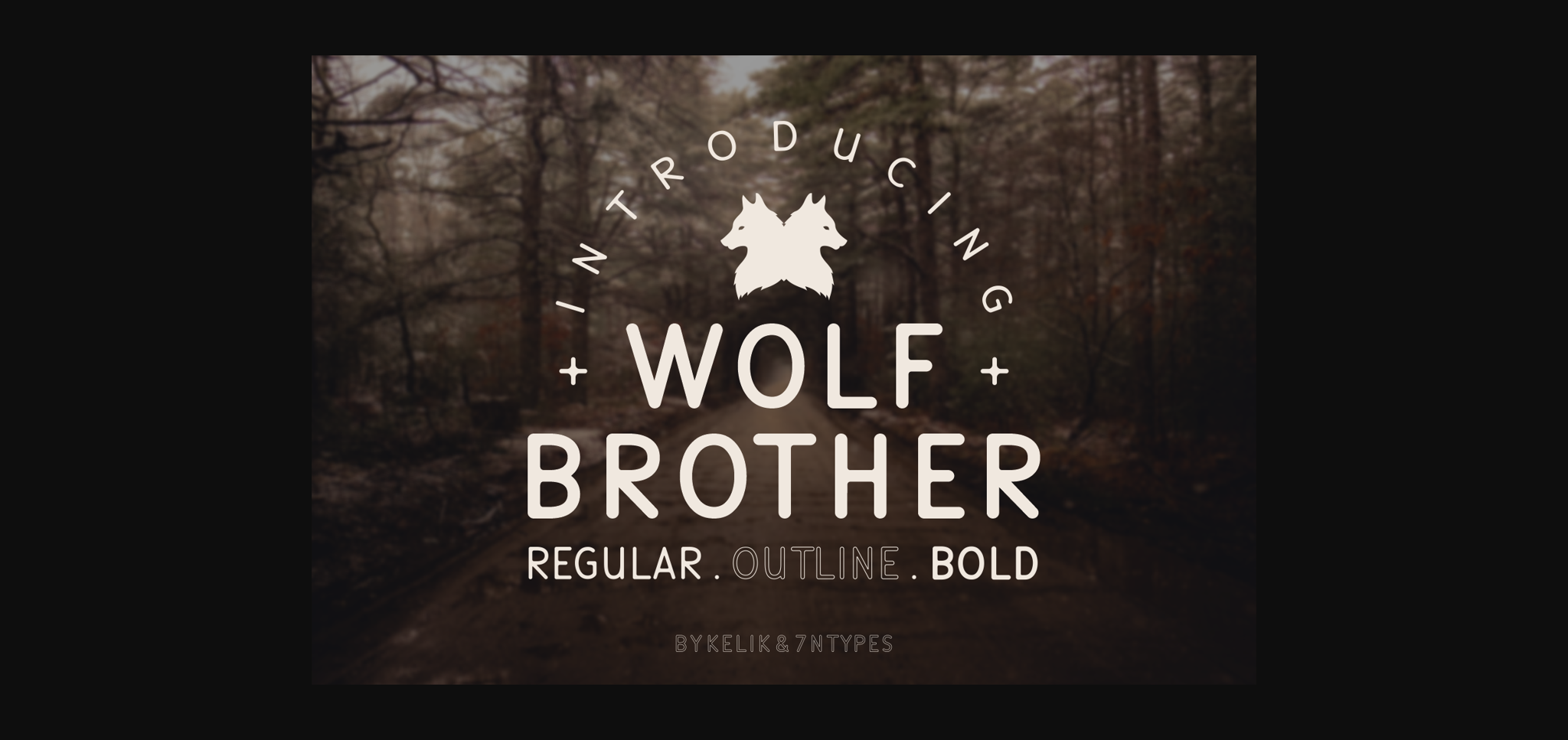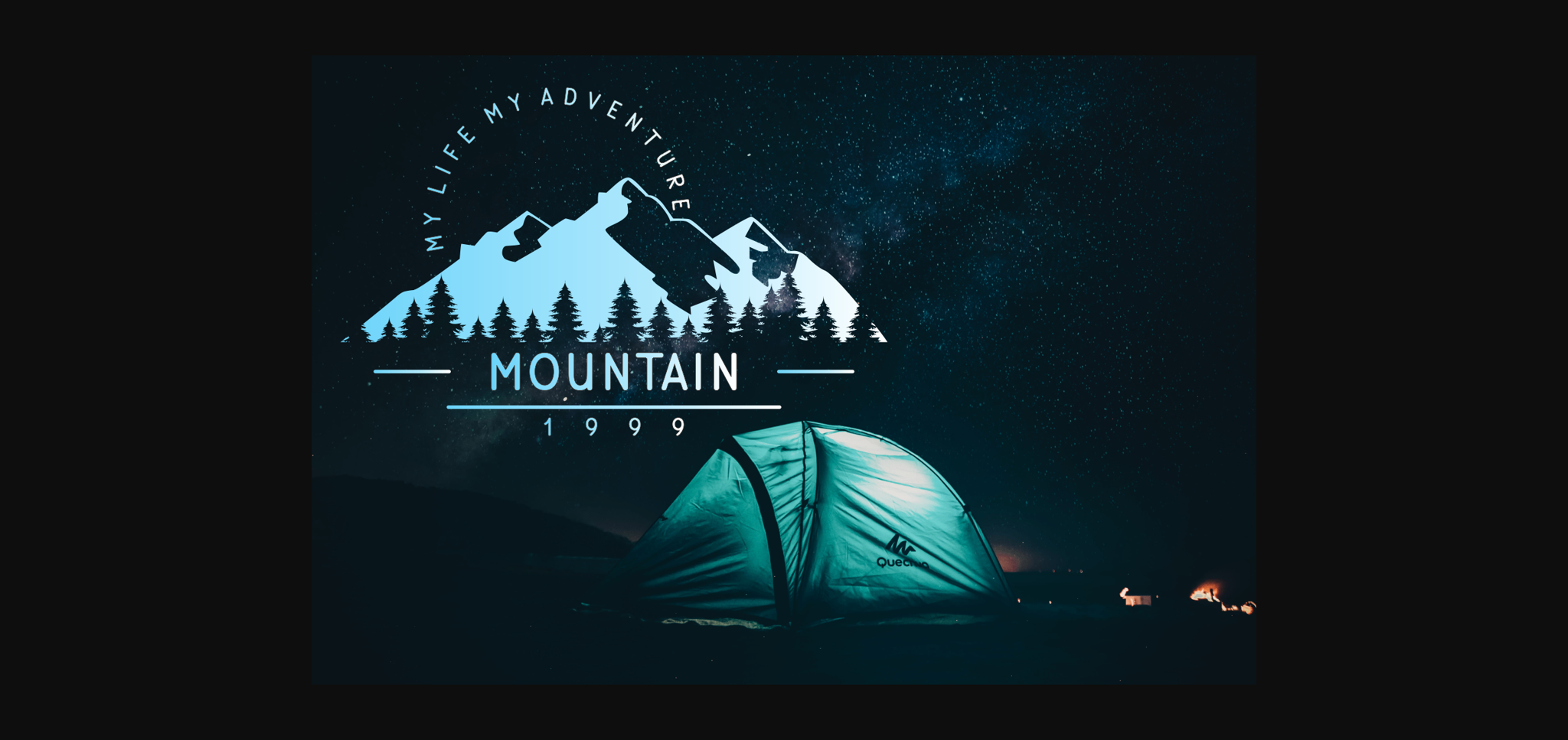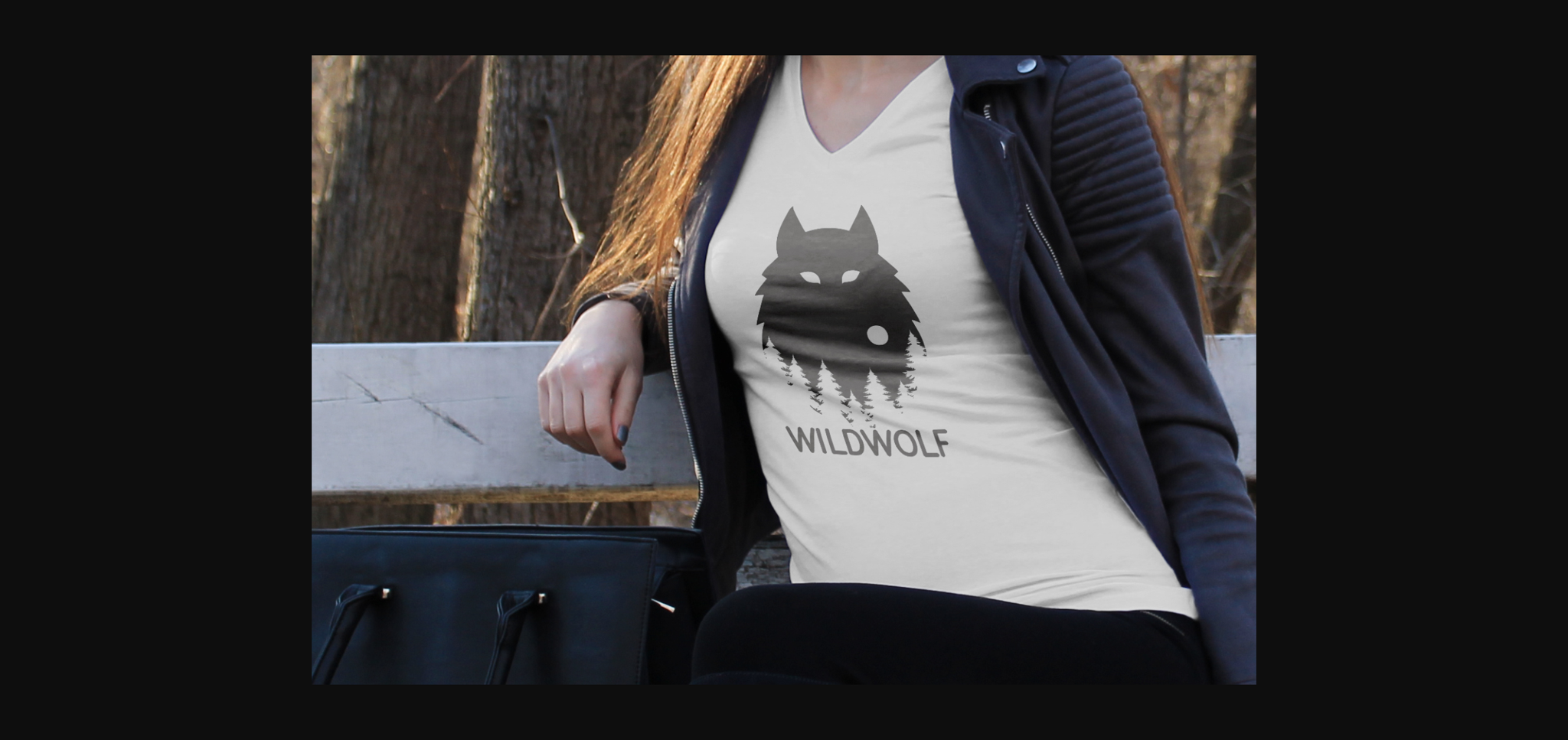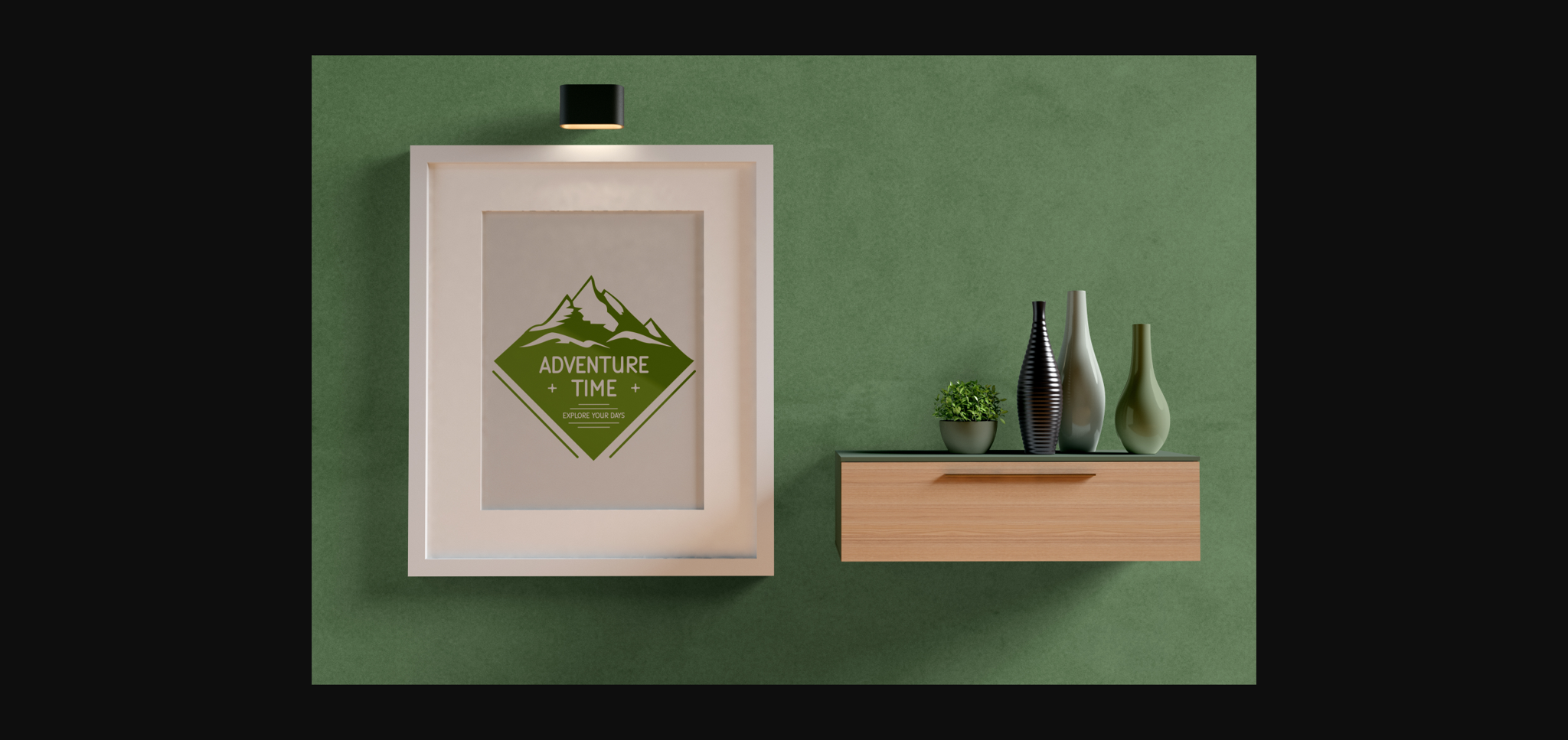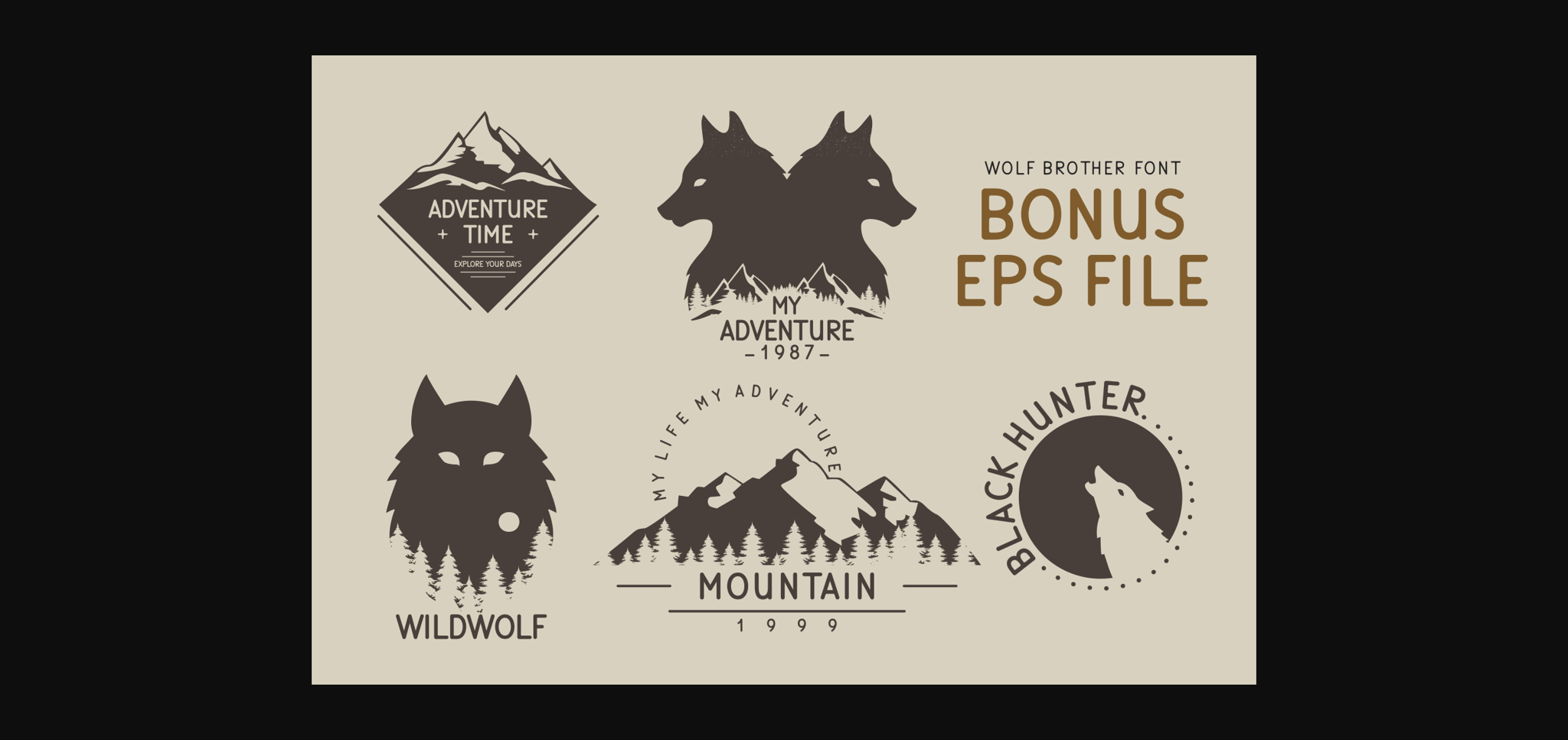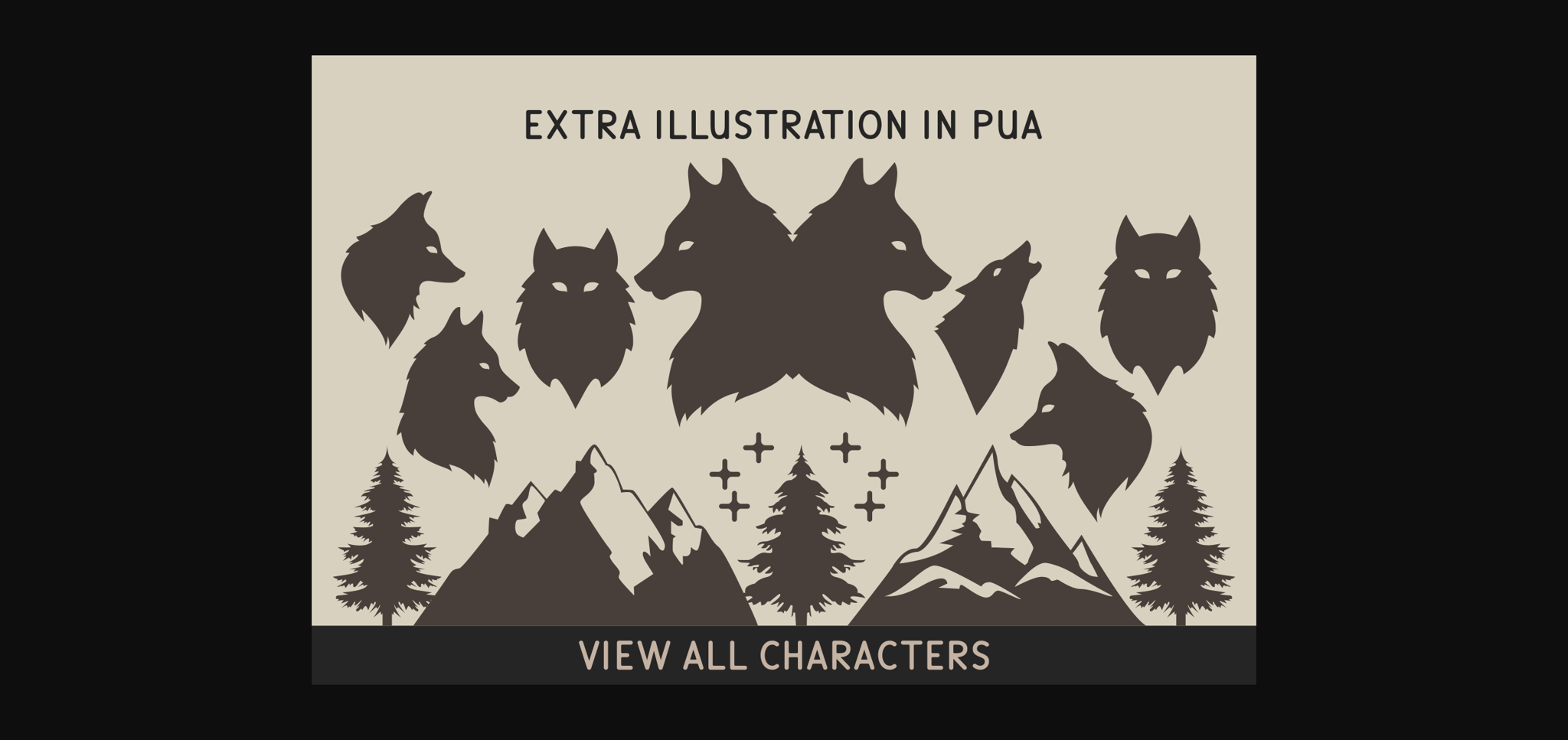
Wolf Brother Font
About Wolf Brother Font
Wolf Brother is bold and nostalgic, but also timeless. This versatile display font has a wide range of applications ranging from classic text body to displays and titles, and is guaranteed to add an elegant touch to your next design. It comes in 3 unique font styles, Regular, Outlined and Bold.
This font is PUA encoded which means you can access all of the powerful glyphs and swashes with ease! It also features a wealth of special features including alternate glyphs and ligatures.